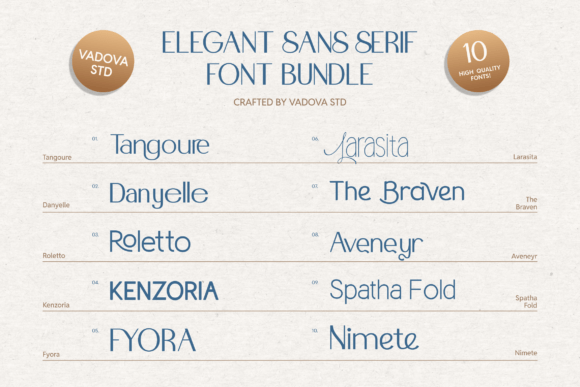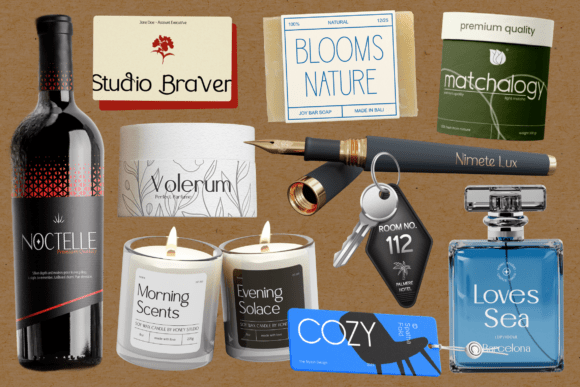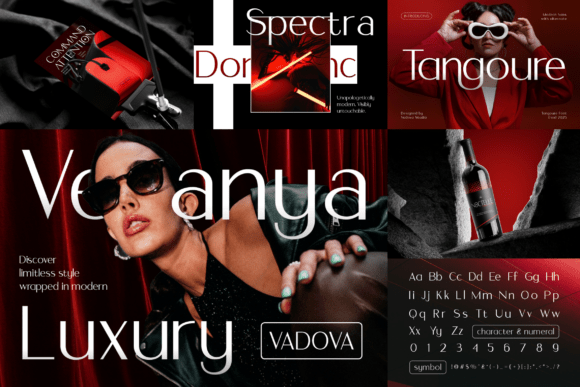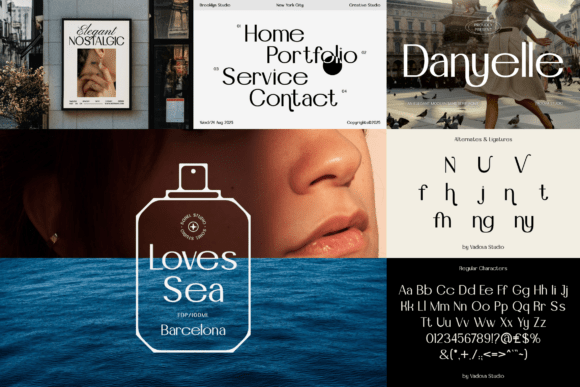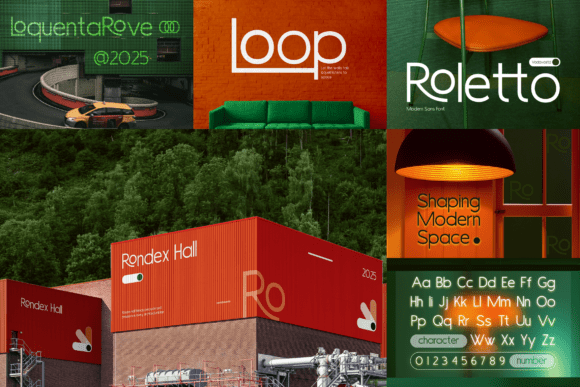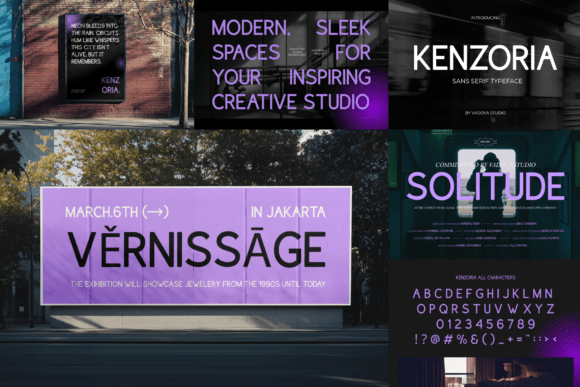
Unleash the Power of Elegance in Your Designs
Have you ever stared at a blank page, searching for the perfect font to elevate your design? The struggle is real, but what if you could have a secret arsenal of sophisticated sans serif fonts at your fingertips? The Elegant Sans Serif Bundle Font is here to revolutionize your creative process, offering a refined collection of modern typefaces that exude luxury and refinement.
This curated bundle is designed to bring a touch of elegance to your designs, whether you’re working on a high-end branding project, crafting editorial layouts, or creating premium marketing materials. With its clean structures, elegant proportions, and professional character, the Elegant Sans Serif Bundle Font is a valuable asset for any designer looking to elevate their work and stand out in a crowded market.
Elegant Sans Serif Bundle Font Key Features
- Font Family: Elegant Sans, Elegant Sans Light, Elegant Sans Bold, Elegant Sans ExtraBold
- Unique Characteristics: Elegant Sans features a modern, clean design with subtle rounded edges and a wide range of weights, making it perfect for corporate branding, digital products, and editorial content
Elegant Sans Serif Bundle Font Review
I recently had the chance to work with the Elegant Sans Serif Bundle Font, and I must say it’s a solid choice for any designer looking for a clean and sophisticated sans-serif font. ✨ Here are some of the things I like about it:
- Highly customizable: The font comes with a range of weights and styles, making it easy to find the perfect fit for your project.
- Scalable: The font looks great in both large and small sizes, making it perfect for headings and body text.
- Easy to read: The font is highly legible, even at small sizes, making it perfect for documents, websites, and other digital content.
However, as with any font, there are some limitations. ⚠️ Here are a few things to keep in mind:
- Not as unique: While the font is certainly elegant, it’s not particularly unique or innovative, so if you’re looking for a font that will really stand out, you may want to look elsewhere.
- Not suitable for informal content: The font is a bit too formal for informal content, such as social media posts or blog comments.
Overall, I would say that the Elegant Sans Serif Bundle Font is a solid choice for designers who need a clean and sophisticated sans-serif font. While it may not be the most unique or innovative font on the market, it’s certainly a reliable and versatile choice.
Here are some tips to get the most out of the Elegant Sans Serif Bundle Font:
- Use it consistently throughout your design to create a cohesive look.
- Pair it with other fonts to create a unique and elegant typography.
The Elegant Sans Serif Bundle Font is perfect for:
- Corporate branding and marketing materials.
- Web design and development.
- Print design and publishing.